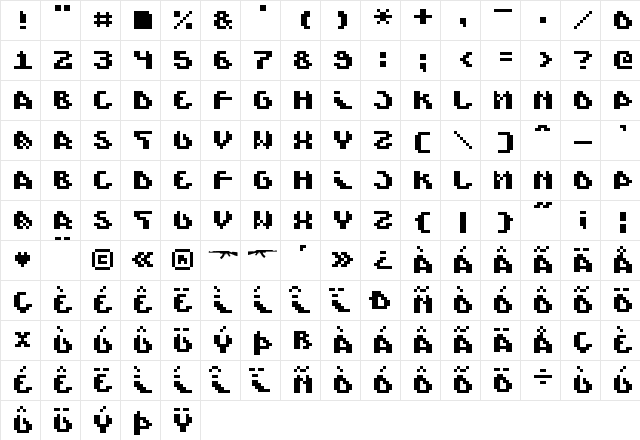
Scienide LS Regular
| Foundry | :ck!: |
| Designer | :ck!: [freakyfonts] |
Design Context for Scienide LS Typeface
Scienide LS is a composed and adaptable typeface that performs quietly and consistently across a wide range of design contexts.